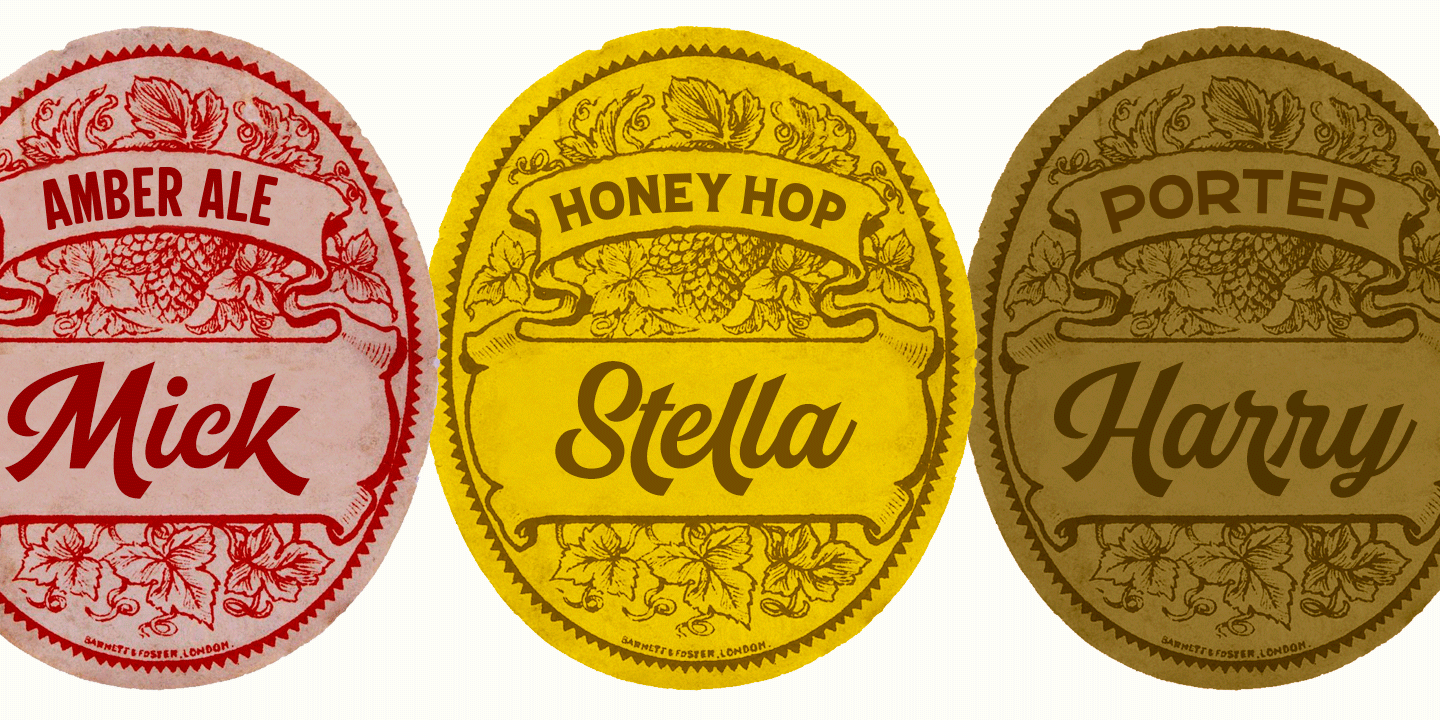
Explorer Font is perfect for adventure travel agencies, outdoor gear branding, expedition documentary titles, wilderness survival guides, national park materials, hiking trail signage, adventure photography portfolios, and extreme sports event posters.
This font is exciting because it embodies the fearless spirit of discovery and wilderness adventure with rugged, purposeful letterforms that inspire courage and wanderlust in those seeking authentic outdoor experiences. The Explorer Font captures the essence of uncharted territories and bold expeditions, transforming ordinary text into compelling invitations to embrace adventure and discover the extraordinary beauty of our natural world.
The Explorer Font family includes adventure-inspired variations such as Regular, Bold, Light, Rugged, Italic, Trail, Condensed, and Extended versions, providing outdoor brand designers with comprehensive tools to create authentic adventure typography that resonates with explorers and outdoor enthusiasts seeking genuine wilderness experiences.
Embark on epic adventures with Explorer Font Free Download that brings wilderness authenticity to every outdoor design project. This adventure-ready typeface combines rugged durability with practical functionality, making it perfect for outdoor companies, adventure tourism operators, and brands serving the global community of explorers and nature enthusiasts. The font's sturdy character design ensures your message feels reliable and adventure-ready while maintaining excellent readability across all outdoor applications. Whether you're developing outdoor gear branding, creating adventure travel marketing, or designing materials for wilderness expeditions, Explorer Font delivers the authentic typography that speaks to adventurers seeking real outdoor experiences. Its versatile design works effectively across digital and print media while preserving the rugged spirit that makes adventure communications feel genuinely inspiring and capable of motivating people to step outside their comfort zones and discover the transformative power of wilderness exploration.